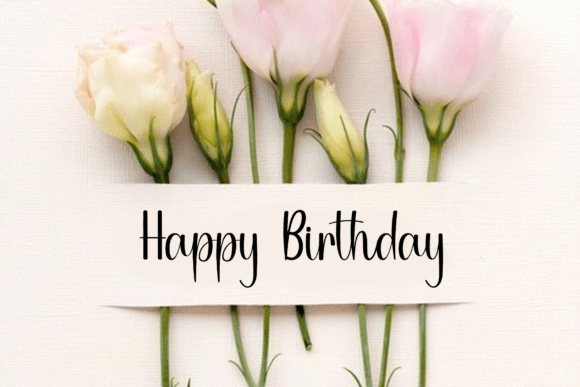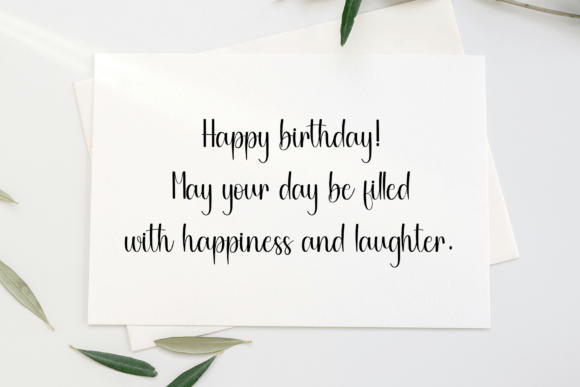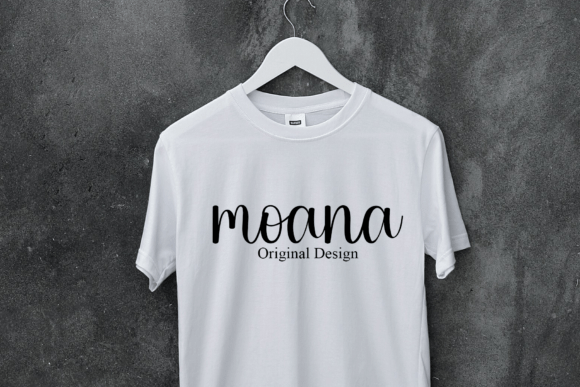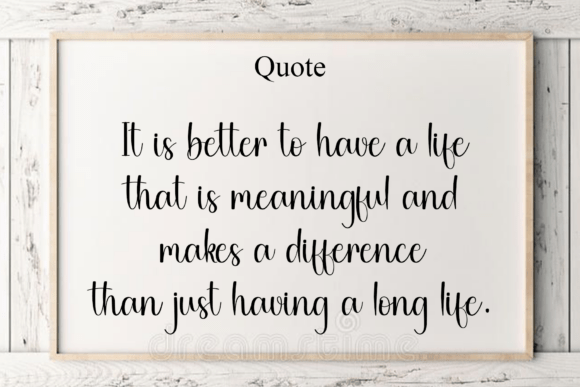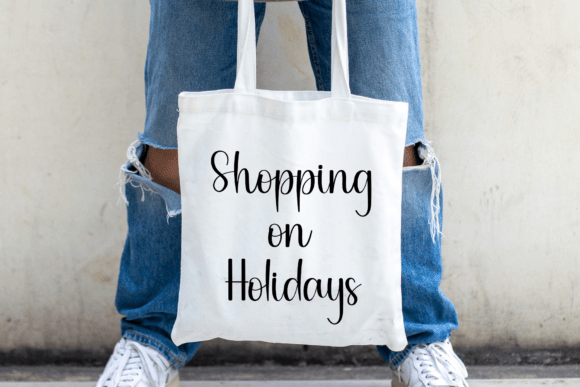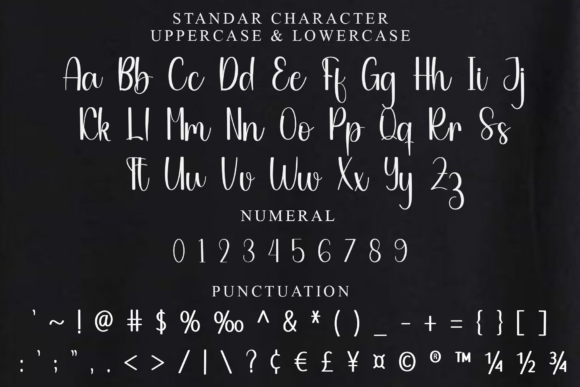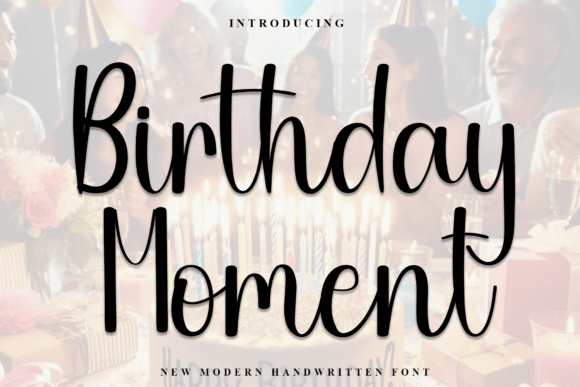
Introducing Birthday Moment Font: The Perfect Choice for Your Creative Projects
Are you looking for a font that can add a touch of elegance and sophistication to your designs? Look no further than Birthday Moment Font, a lovely and timeless handwritten font that is perfect for creating eye-catching logos, branding, and quotes. With its unique and beautiful touch, this font is sure to make your design come alive!
The Characteristics of Birthday Moment Font
Birthday Moment Font is a handwritten font that boasts a range of characteristics that make it perfect for creative projects. Here are a few of its standout features:
- Unique and Beautiful Touch: Every letter in Birthday Moment Font has a unique and beautiful touch that sets it apart from other fonts. The font’s creator has put a lot of care and attention into crafting each letter, resulting in a font that is both elegant and eye-catching.
- Timeless Design: Unlike some fonts that can look dated after a few years, Birthday Moment Font has a timeless design that will never go out of style. Its classic look and feel make it perfect for projects that require a touch of sophistication.
- Handwritten Style: The handwritten style of Birthday Moment Font gives it a personal and intimate feel that is perfect for creating logos, branding, and quotes. The font’s handwritten style also makes it easy to read and understand.
Why Choose Birthday Moment Font?
So, why should you choose Birthday Moment Font for your creative projects? Here are a few reasons:
- Perfect for Logos and Branding: Birthday Moment Font is perfect for creating eye-catching logos and branding materials. Its unique and beautiful touch makes it stand out from other fonts, and its timeless design ensures that your logo or brand will never look dated.
- Ideal for Quotes and Sayings: The font’s handwritten style and elegant look make it perfect for creating quotes and sayings. Whether you’re creating a poster, a social media graphic, or a t-shirt design, Birthday Moment Font is a great choice.
- Easy to Read: Despite its elegant and cursive style, Birthday Moment Font is easy to read and understand. This makes it perfect for projects that require a font that is both beautiful and legible.
How to Use Birthday Moment Font
Using Birthday Moment Font is easy! Here are a few tips to get you started:
- Pair it with Other Fonts: Birthday Moment Font pairs well with other fonts, especially sans-serif fonts. Try pairing it with a font like Arial or Helvetica to create a beautiful contrast.
- Use it for Headings and Titles: Birthday Moment Font is perfect for headings and titles. Use it to create eye-catching headings that draw attention to your design.
- Experiment with Colors: The font’s elegant look and feel make it perfect for a range of colors. Experiment with different colors to find the one that works best for your design.
If you’re a designer or crafter looking to use Birthday Moment Font in your projects, here are a few tips to keep in mind:
- Use it for Personal Projects: Birthday Moment Font is perfect for personal projects, such as creating custom t-shirts, mugs, or posters. Its elegant look and feel make it perfect for showcasing your creativity.
- Experiment with Different Sizes: The font’s elegant look and feel make it perfect for a range of sizes. Experiment with different sizes to find the one that works best for your design.
- Pair it with Images: Birthday Moment Font pairs well with images, especially those with a vintage or rustic feel. Try pairing it with an image to create a beautiful and eye-catching design.
In conclusion, Birthday Moment Font is a lovely and timeless handwritten font that is perfect for creating eye-catching logos, branding, and quotes. Its unique and beautiful touch, timeless design, and handwritten style make it a great choice for designers and crafters. Whether you’re working on a personal project or a client’s design, Birthday Moment Font is sure to make your design come alive!